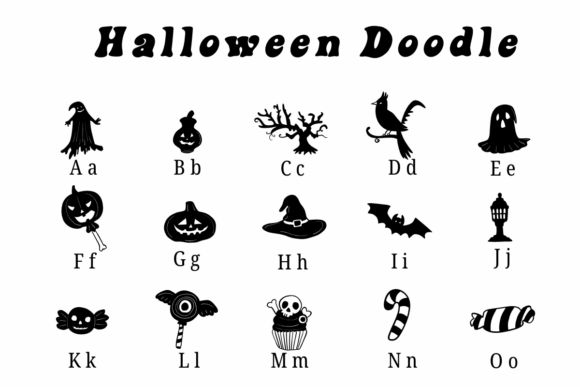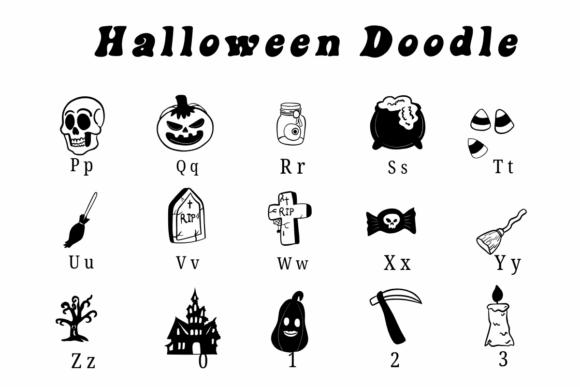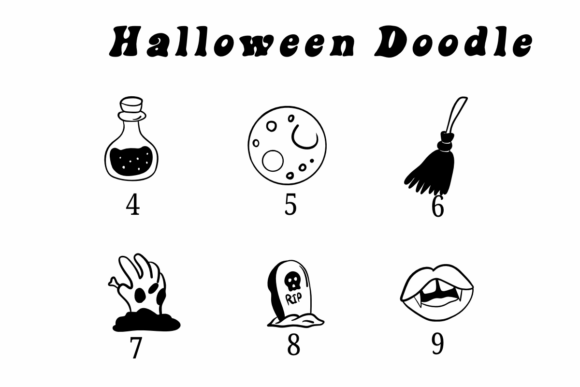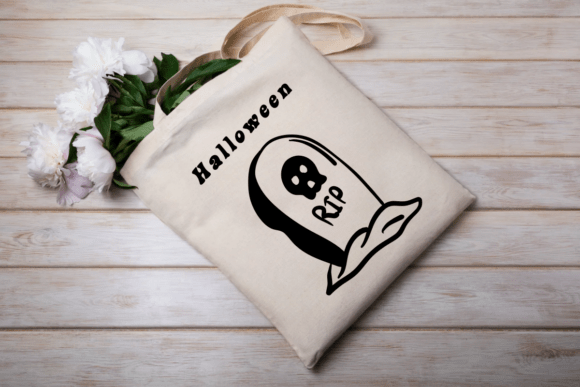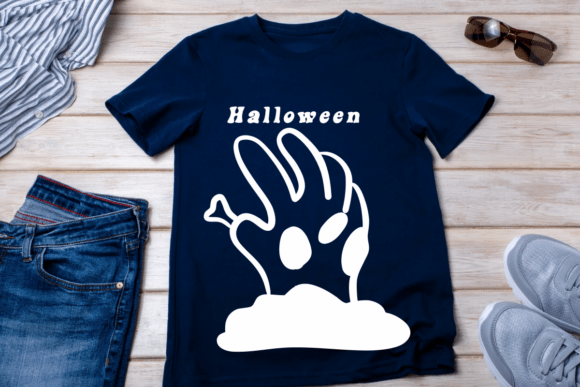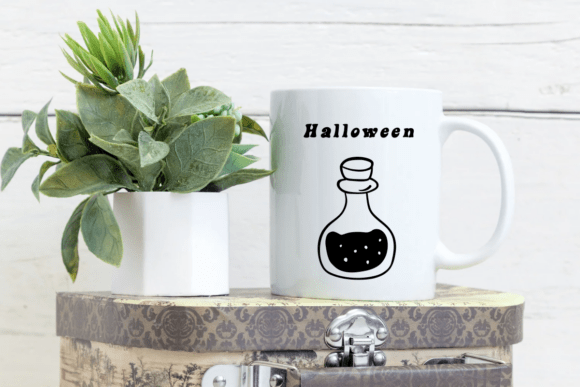
Unleash the Spookiness: A Comprehensive Guide to Halloween Doodle Font
As the spookiest time of the year approaches, designers and crafters are on the lookout for the perfect font to add a touch of eeriness to their creative projects. Look no further than the Halloween Doodle Font, a dingbats font that is sure to cast a spell on your audience. In this article, we’ll dive into the world of Halloween Doodle Font, exploring its features, uses, and benefits for designers and crafters alike.
What is Halloween Doodle Font?
Halloween Doodle Font is a unique dingbats font that is specifically designed with a spooky theme in mind. This font is perfect for anyone looking to add a touch of Halloween spirit to their creative projects, from wedding invitations to DIY crafts, decorations, logos, and more. With its intricate and playful designs, Halloween Doodle Font is sure to make your projects stand out from the crowd.
Features of Halloween Doodle Font
So, what makes Halloween Doodle Font so special? Here are just a few of its key features:
- Spooky Theme: As mentioned earlier, Halloween Doodle Font has a spooky theme that is perfect for Halloween-themed projects.
- Dingbats Design: This font features intricate dingbats designs that are sure to add a touch of whimsy to your projects.
- Versatile: Halloween Doodle Font can be used for a wide range of creative projects, from digital designs to handmade crafts.
Uses of Halloween Doodle Font
So, what can you use Halloween Doodle Font for? The possibilities are endless! Here are just a few ideas to get you started:
- Wedding Invitations: Add a touch of spookiness to your wedding invitations with Halloween Doodle Font.
- DIY Crafts: Use Halloween Doodle Font to create spooky decorations, cards, and other DIY crafts.
- Logos: Create a spooky logo for your business or brand with Halloween Doodle Font.
- Social Media Graphics: Use Halloween Doodle Font to create spooky social media graphics that are sure to grab attention.
Benefits of Halloween Doodle Font
So, why should you choose Halloween Doodle Font for your creative projects? Here are just a few benefits:
- Unique Designs: Halloween Doodle Font features unique and intricate designs that are sure to make your projects stand out.
- Time-Saving: With Halloween Doodle Font, you can create spooky designs in no time, saving you time and effort.
Tips for Using Halloween Doodle Font
Here are a few tips for using Halloween Doodle Font:
- Experiment with Different Sizes: Try out different font sizes to see what works best for your project.
- Combine with Other Fonts: Combine Halloween Doodle Font with other fonts to create a unique and eye-catching design.
- Use in Combination with Images: Use Halloween Doodle Font in combination with spooky images to create a haunting design.
In conclusion, Halloween Doodle Font is a must-have for designers and crafters looking to add a touch of spookiness to their creative projects. With its unique and intricate designs, this font is sure to make your projects stand out from the crowd. Whether you’re creating wedding invitations, DIY crafts, logos, or social media graphics, Halloween Doodle Font is the perfect choice. So why wait? Download Halloween Doodle Font today and unleash the spookiness in your designs!